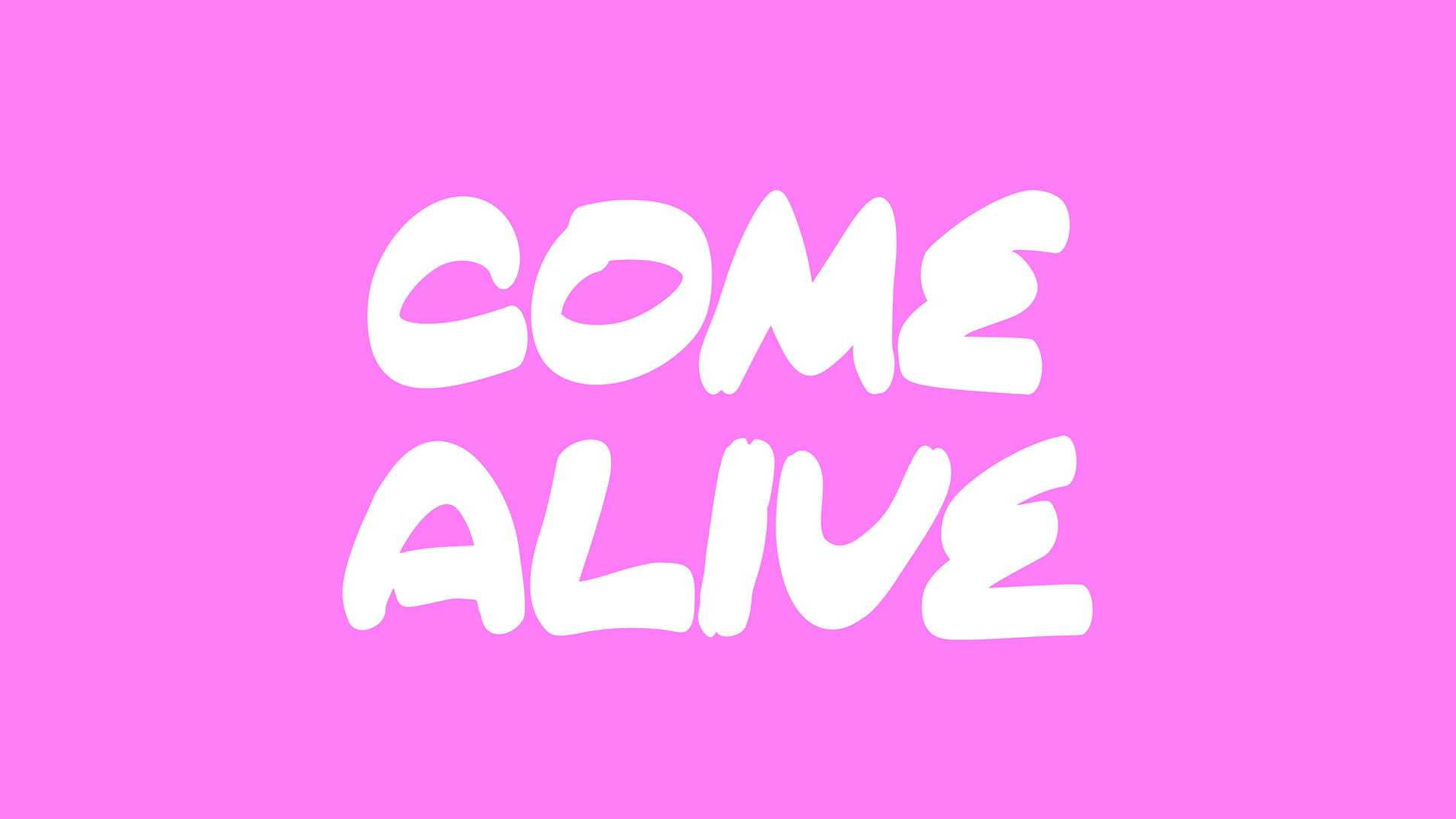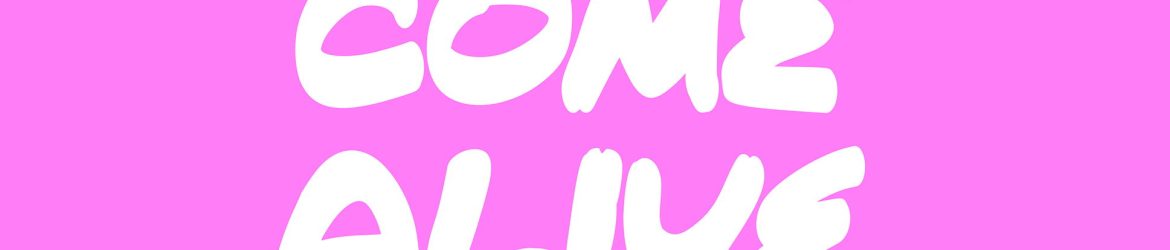
Come Alive Font › Fontesk – Download Grátis
Download Come Alive font, a simple and casual bold brush painted typeface. It suitable for craft designs, labels, posters, headlines, prints and much more.